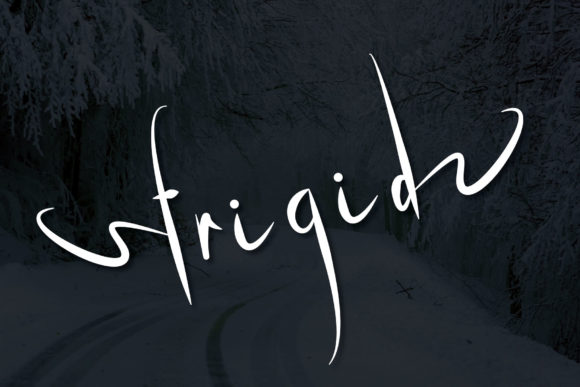
Introducing Frigid Font - The Epitome of Elegance and Sophistication for Your Creative Endeavors. Discover the Allure of Exquisite Handwritten Masterpiece!
Unleash the Enchanting Beauty of Frigid Font, a Cursive Script That Captivates Hearts and Ignites Imagination.
Step into a Realm Where Elegance and Finesse Intertwine, Where Every Stroke of Frigid Font Tells a Story of Art and Grace. Its Delicate Curves and Flowing Lines Dance Across Your Designs, Leaving a Trail of Enthrallment in Their Wake.
Indulge in the Timeless Beauty of Handwritten Charm, Brought to Life Through the Passionate Strokes of Designvector10. Experience the Magic As Frigid Font Transforms Your Creative Visions into Reality.
Dive into a World of Endless Possibilities, where Each Character of Frigid Font Becomes a Canvas for Your Imagination. Craft Eye-Catching logos That Radiate Professionalism, Design Quotes That Speak Volumes, and Create Branding That Commands Attention.
With Frigid Font, You Hold the Key to Unlocking a Universe of Creativity, Where Every Project Becomes a Masterpiece. Its PUA-Encoded Nature Grants You Effortless Access to a Symphony of Glyphs and Swashes, Unleashing Limitless Customization Options.
Embrace the Beauty of Simplicity, the Power of Expression, and the Unrivaled Elegance of Frigid Font. Let It Be Your Creative Ally, Guiding You Towards Design Excellence.
Immerse Yourself in the World of Frigid Font and Discover the True Meaning of Creative Empowerment.